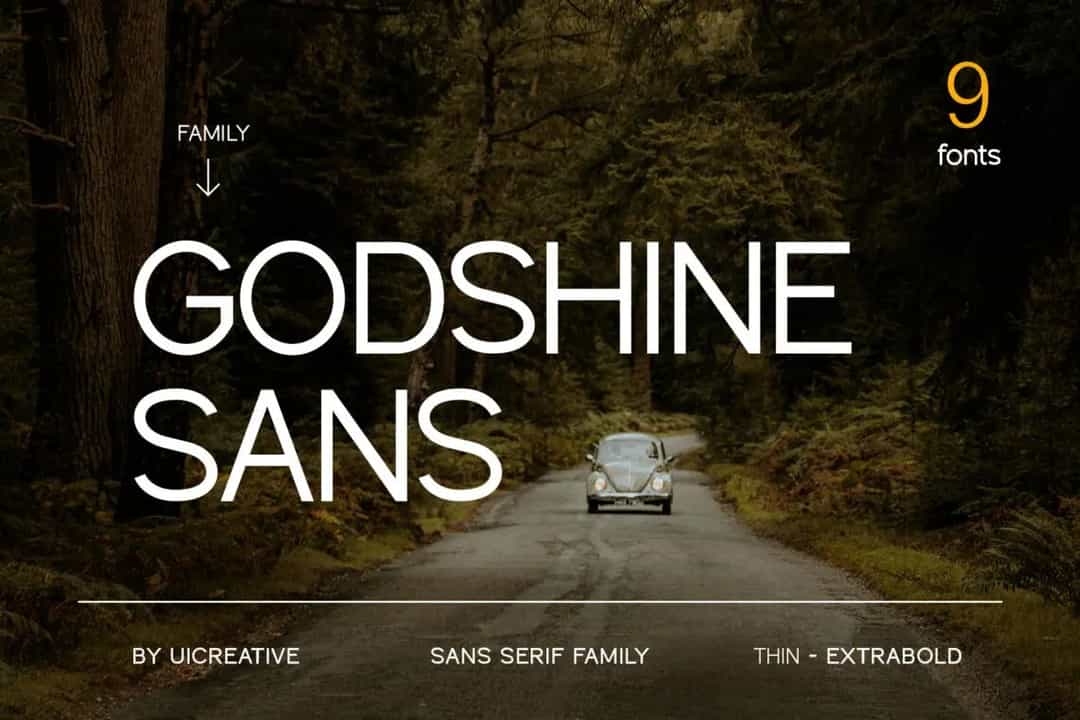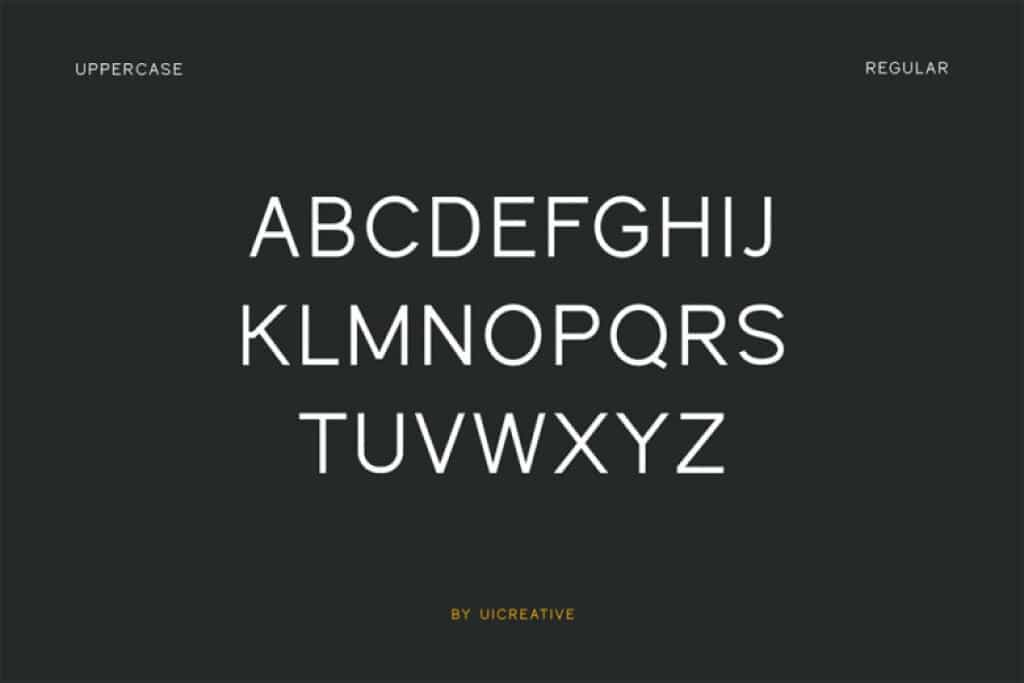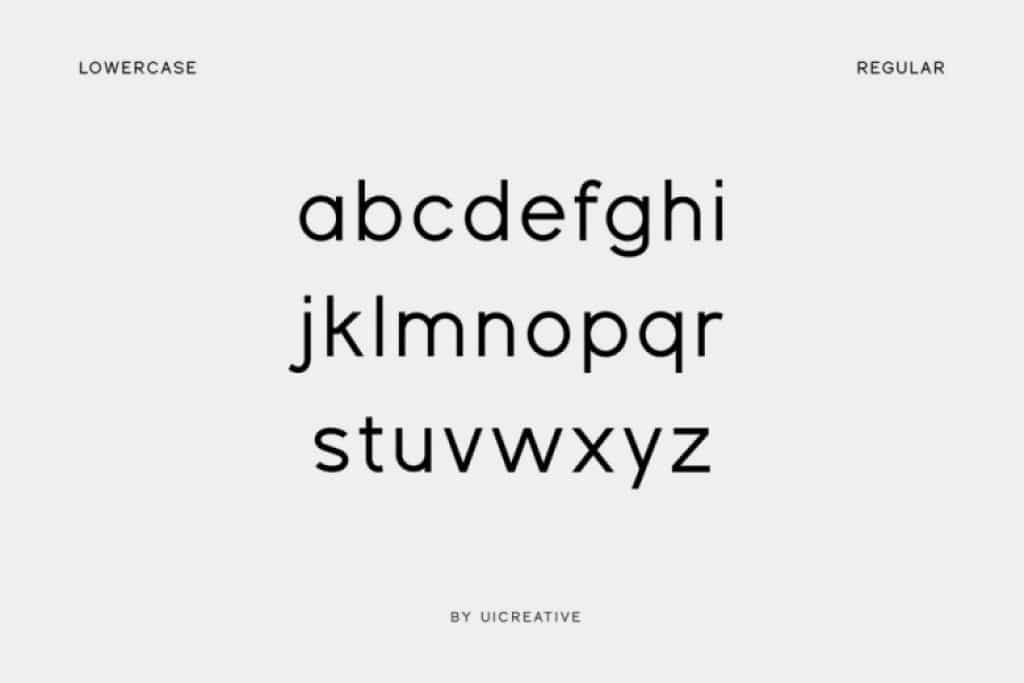
Godshine Modern Sans Serif Font. The modern sans serif font appears to be well suited as it looks sophisticated, elegant and fashionable. The font is suitable for many types of projects including signature, stationery, logo, wedding, typographic quotes, magazine or book cover, headers, branding and etc. Fashion-related branding or editorial design is also androgynous in its appeal, but leans more towards being feminine.